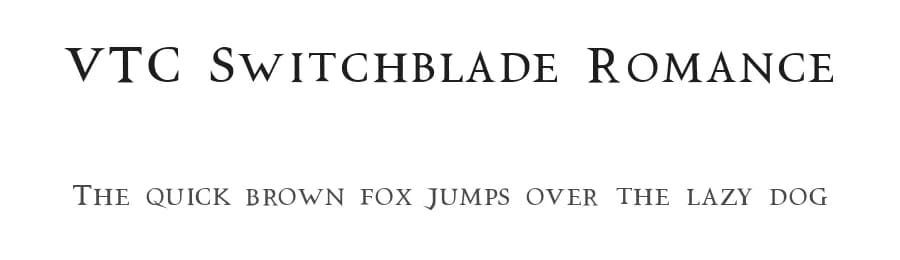
About VTC Switchblade Romance Font
VTC Switchblade Romance is a serif typeface designed by Vigilante Typeface Corporation, bringing refined classicism to editorial and formal design work. With language support spanning 107+ Latin-based scripts, it's built from the ground up for international projects.
The regular weight offers balance across both display and body text contexts. Wedding invitation suites gain immediate benefit from its formal serif structure and romantic connotations. Editorial layouts and book covers find natural homes for its typography, while magazine spreads, posters, and greeting cards benefit from serif precision. Formal branding systems, labels, and professional applications work well with this typeface's distinctive character. Its 105-glyph set ensures coverage of essential typographic needs across diverse language contexts, making it practical for multilingual publishing.
VTC Switchblade Romance Font is a versatile serif font that works for both headings and body text. Pair it with a contrasting sans-serif or slab serif font to add visual interest and a clear distinction between titles and body copy.
VTC Switchblade Romance Font
by Vigilante Typeface Corporation